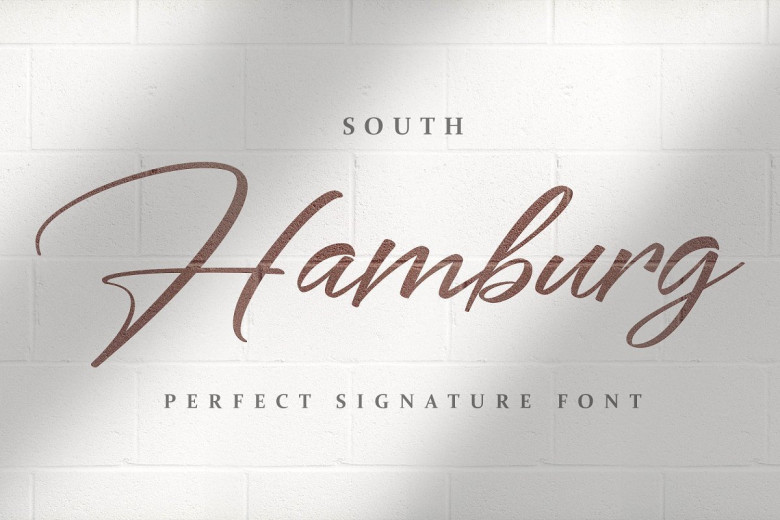
South Hamburg Handwritten Signature Script Font
South Hamburg Handwritten Script Font is elegant, classy, readable, stylish, catchy and easy to use. This Font is the great choice for watermark on photography, signature or signature logo design, quotes, album cover, business card, and many other design project.